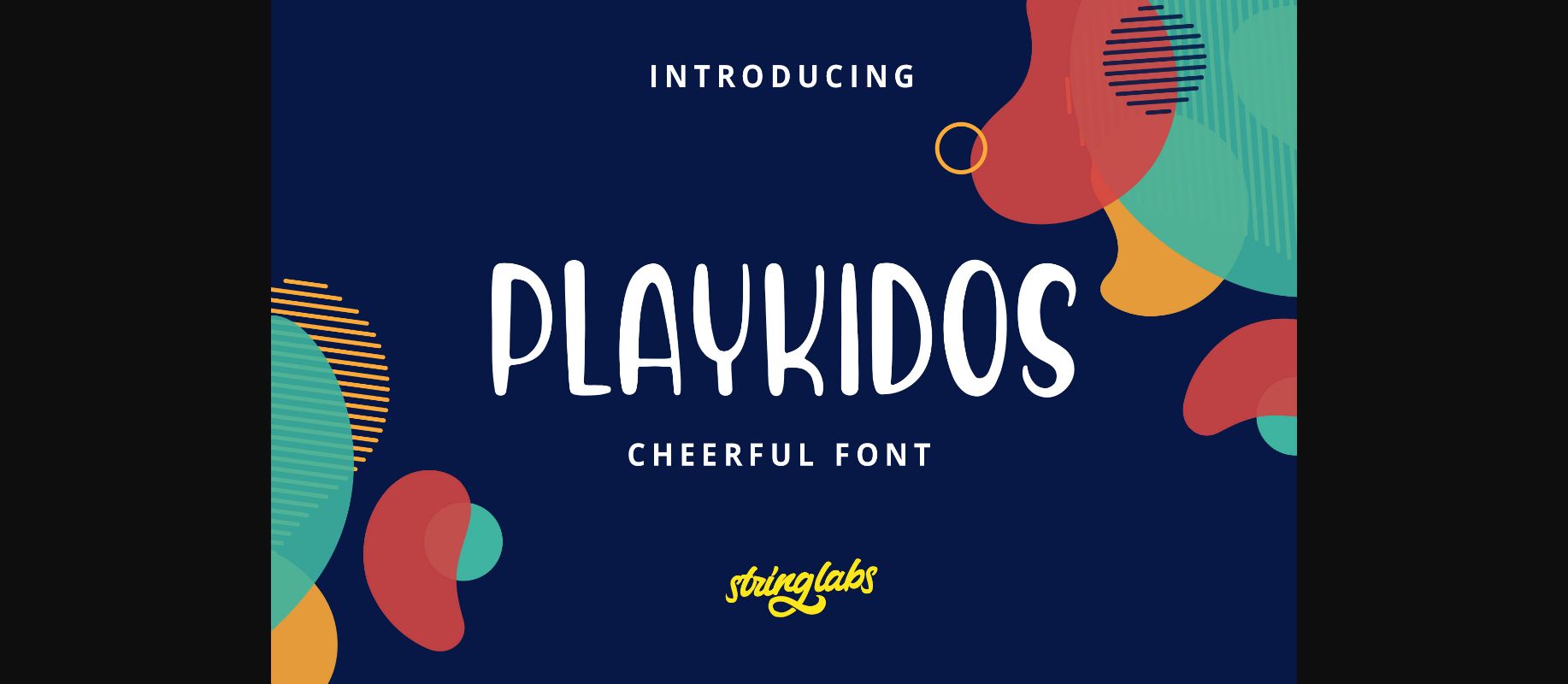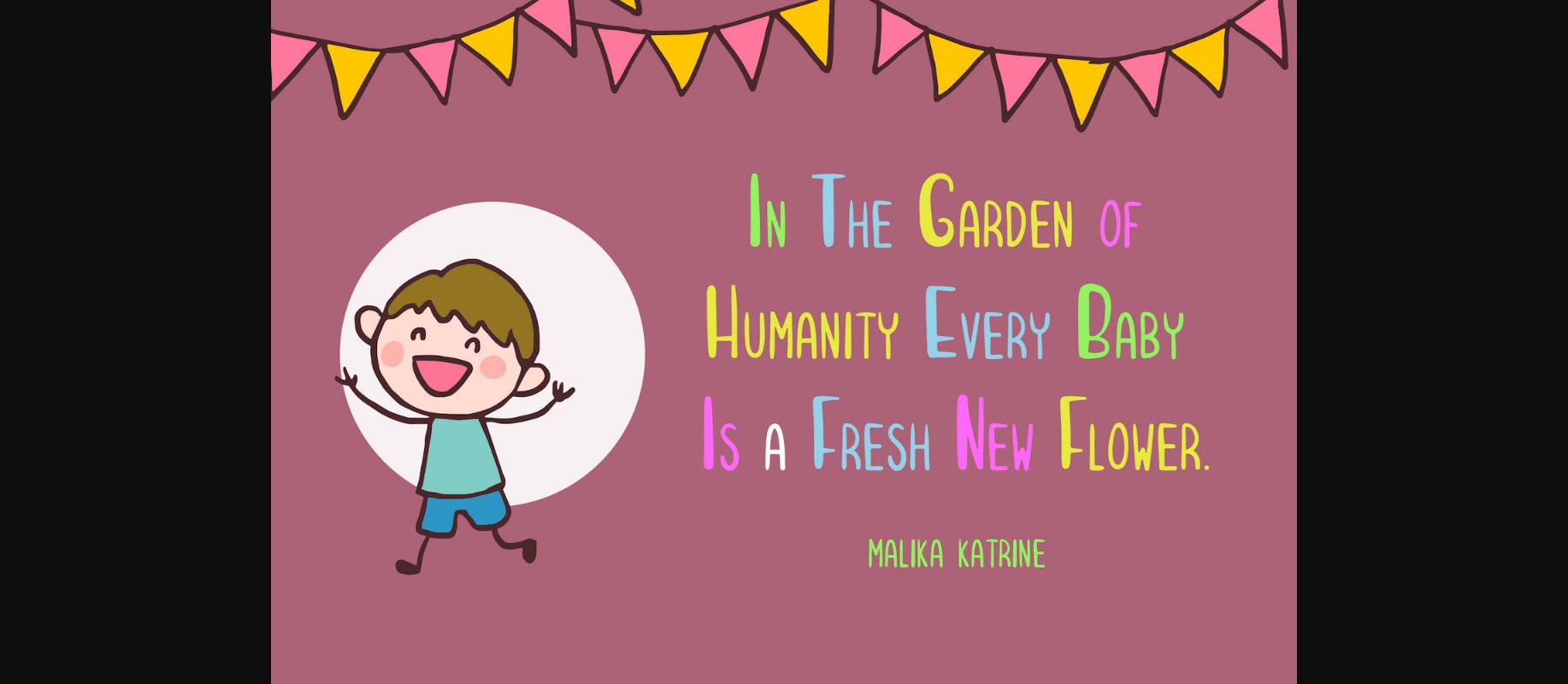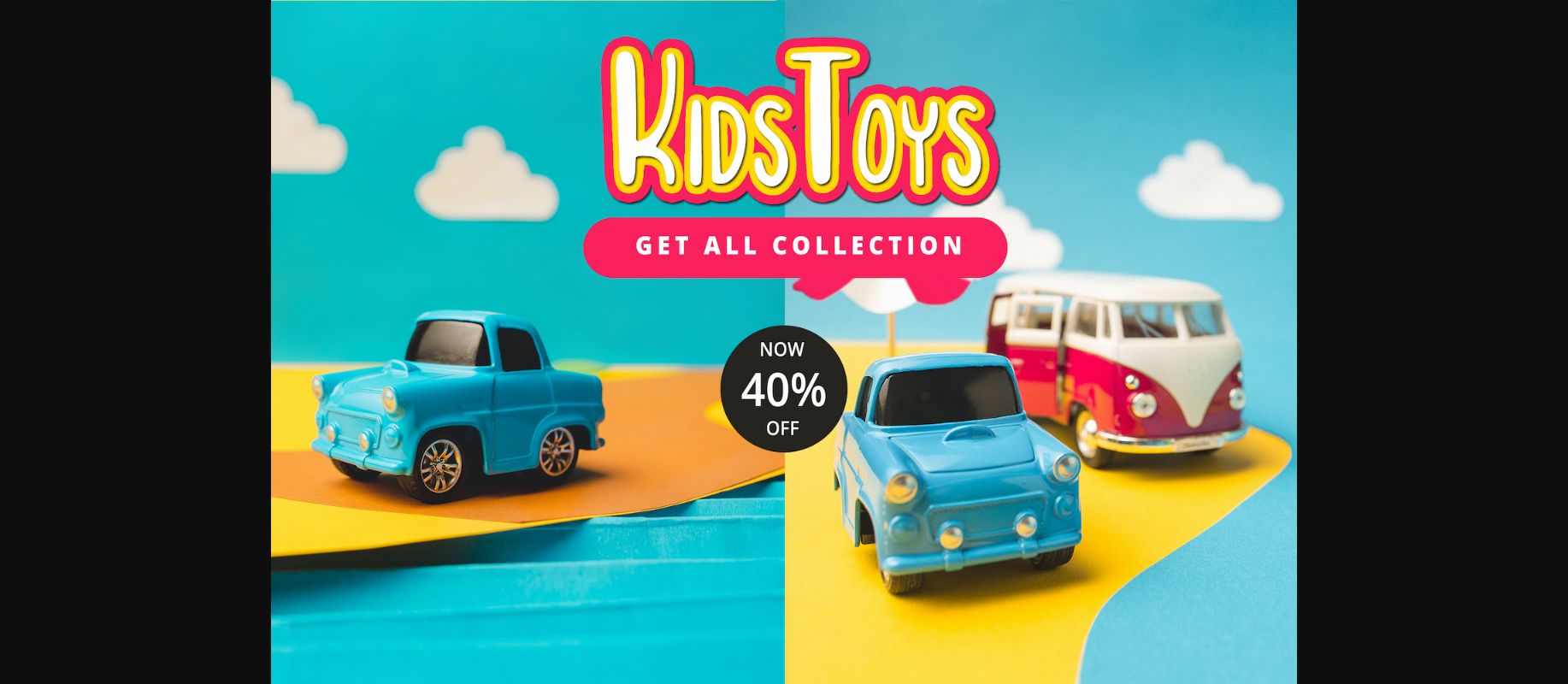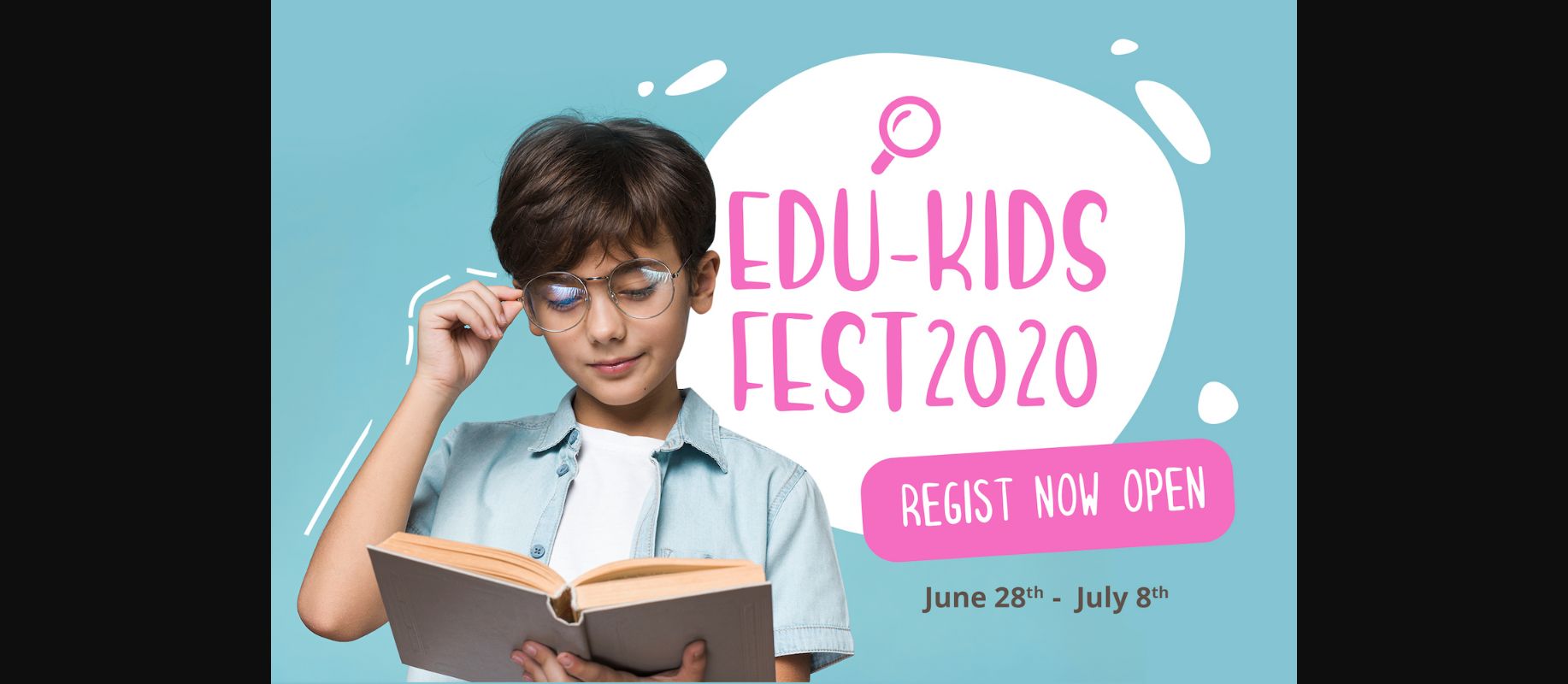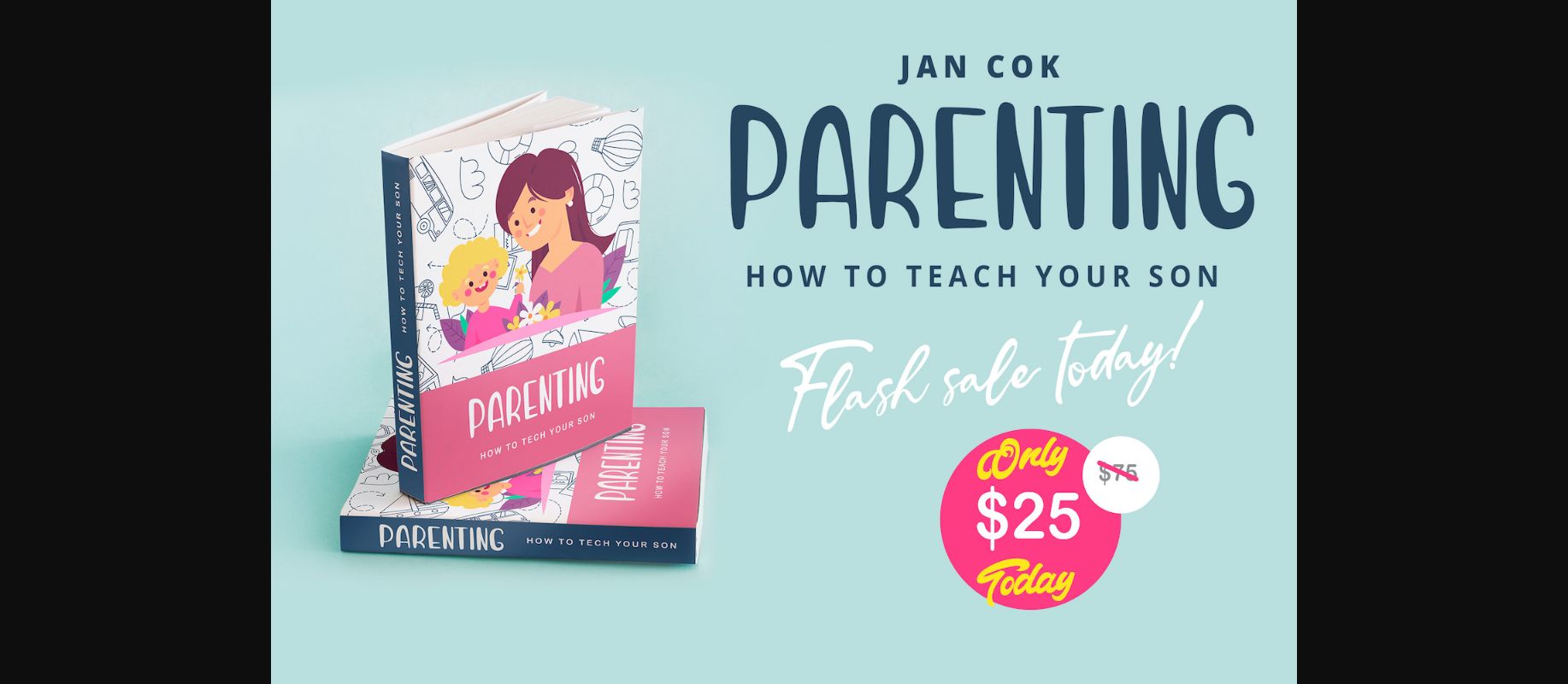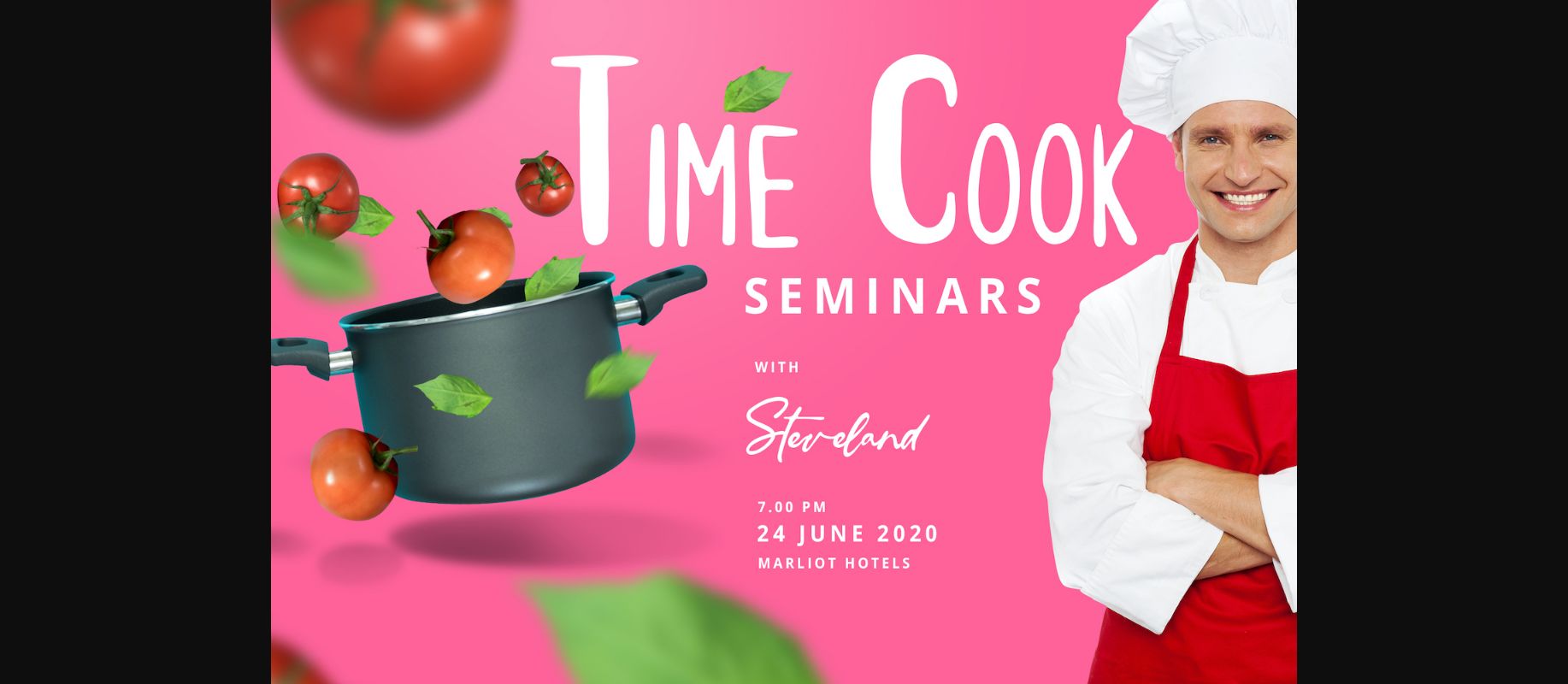
About Playkidos Font
Playkidos embodies fun, quirkiness and authenticity. This enchanting decorative font will turn any creative idea into a true standout. Get creative with its childlike playfulness, and use it to brighten up any kids and school project!